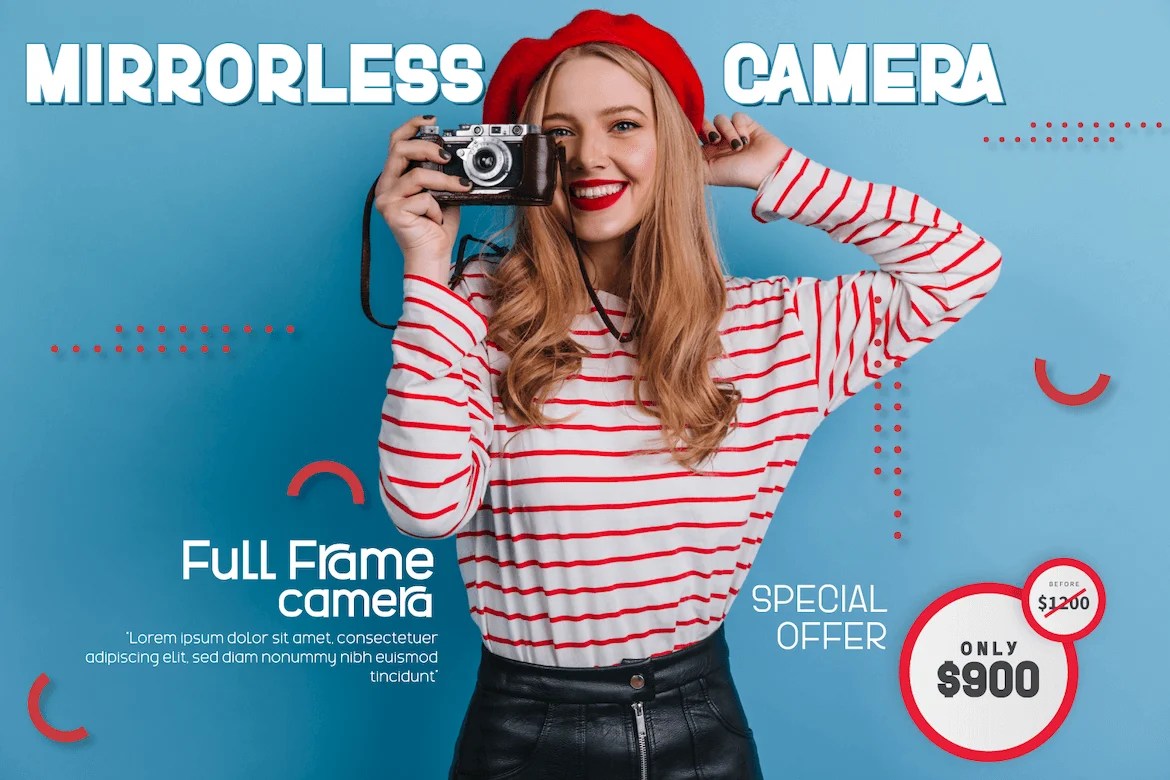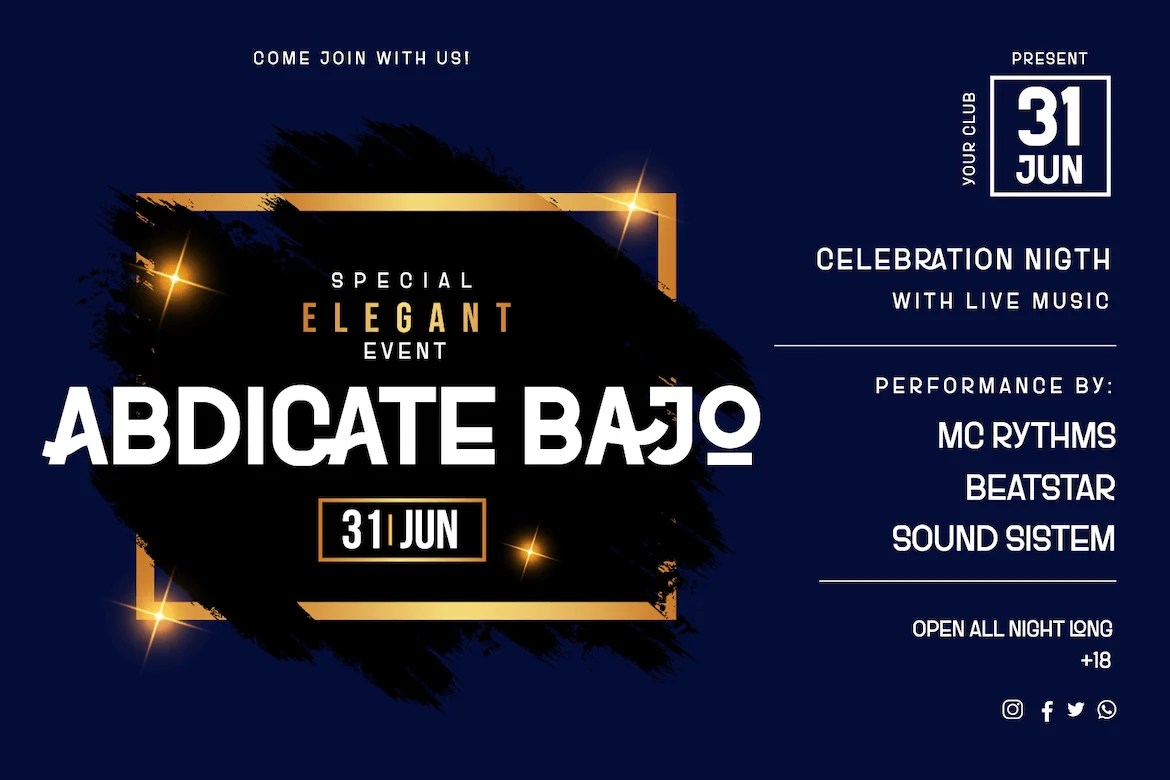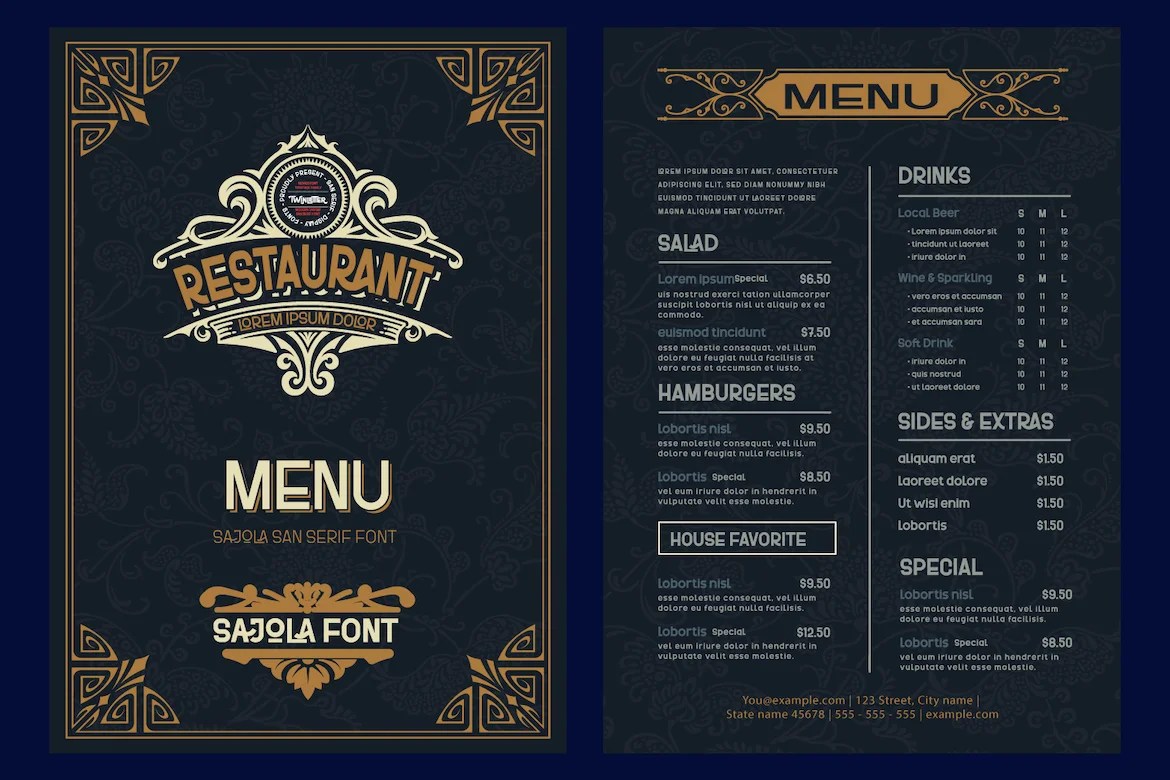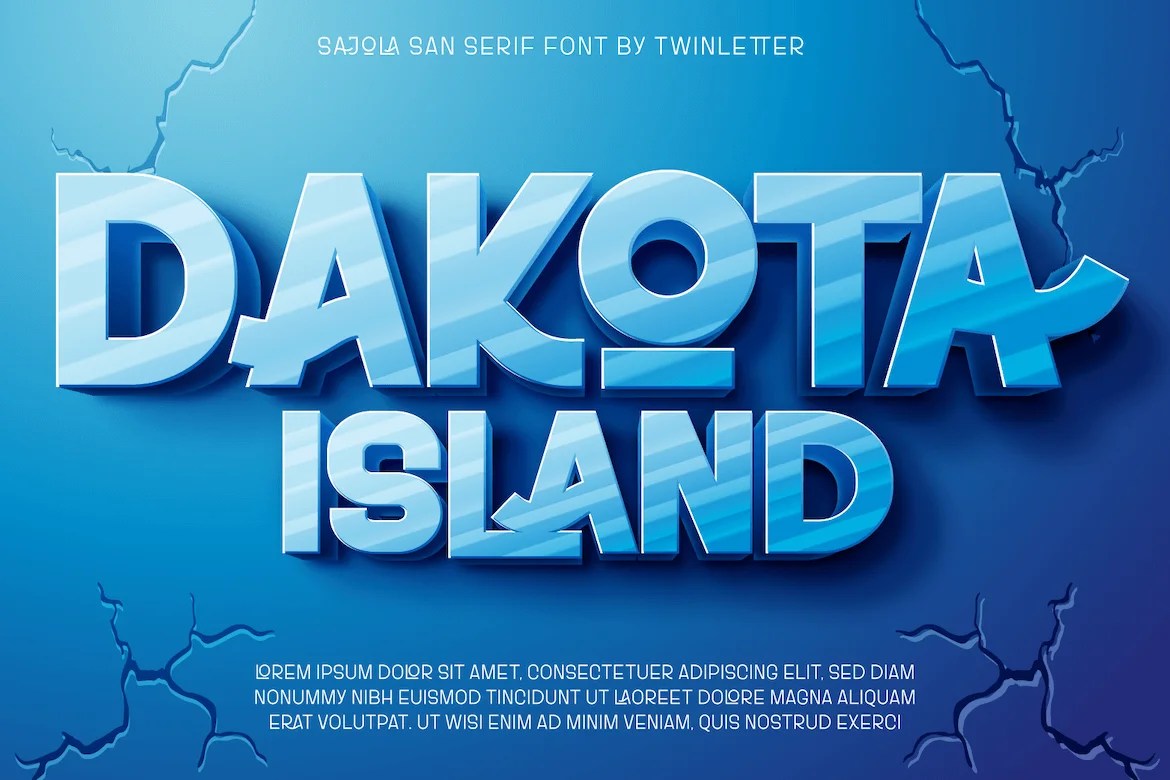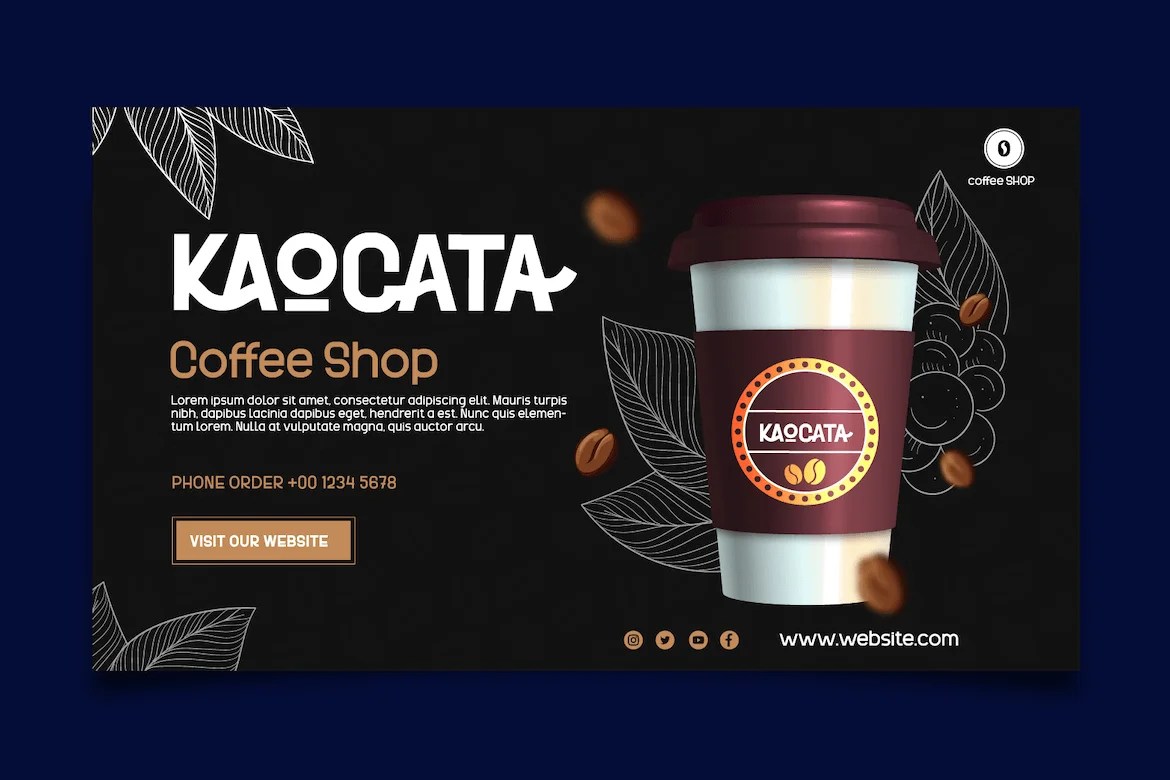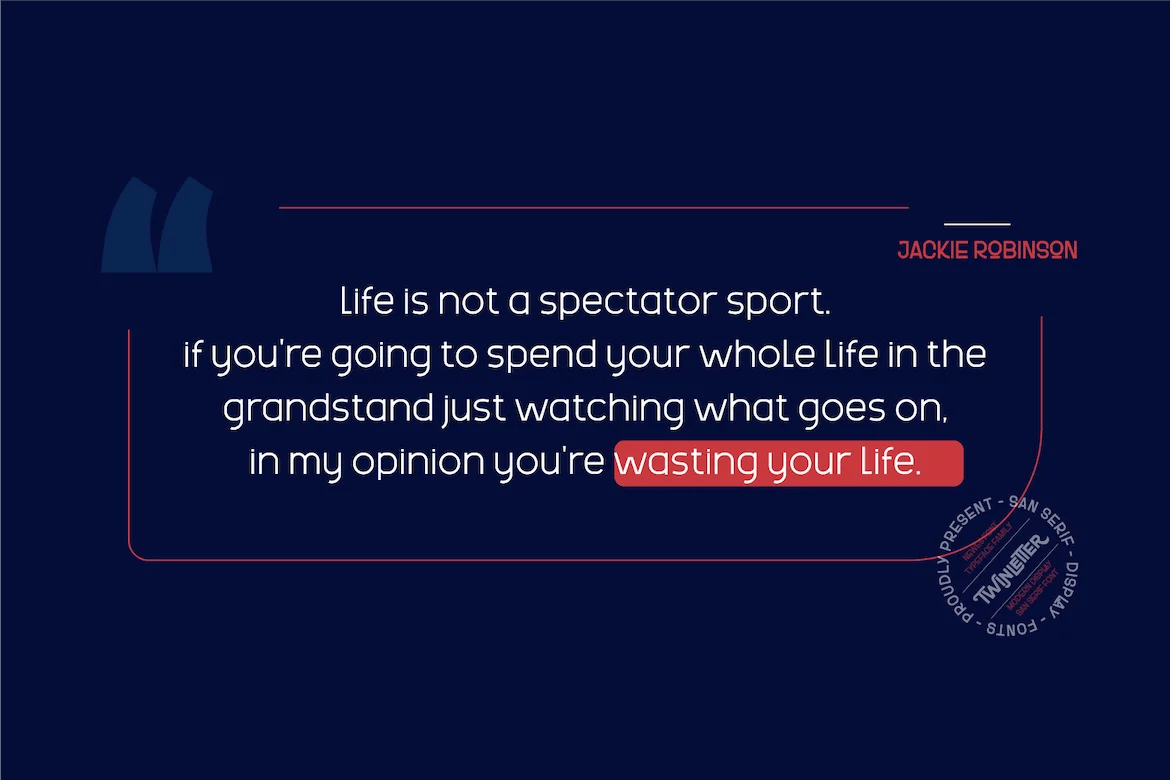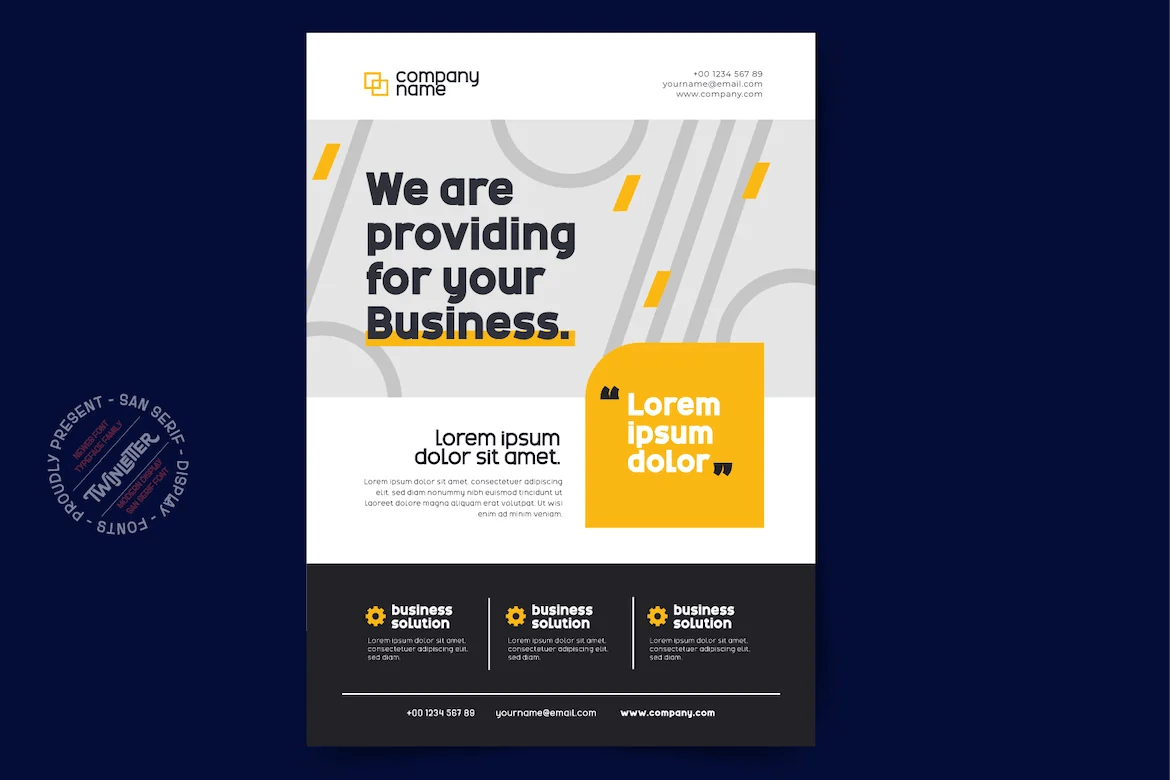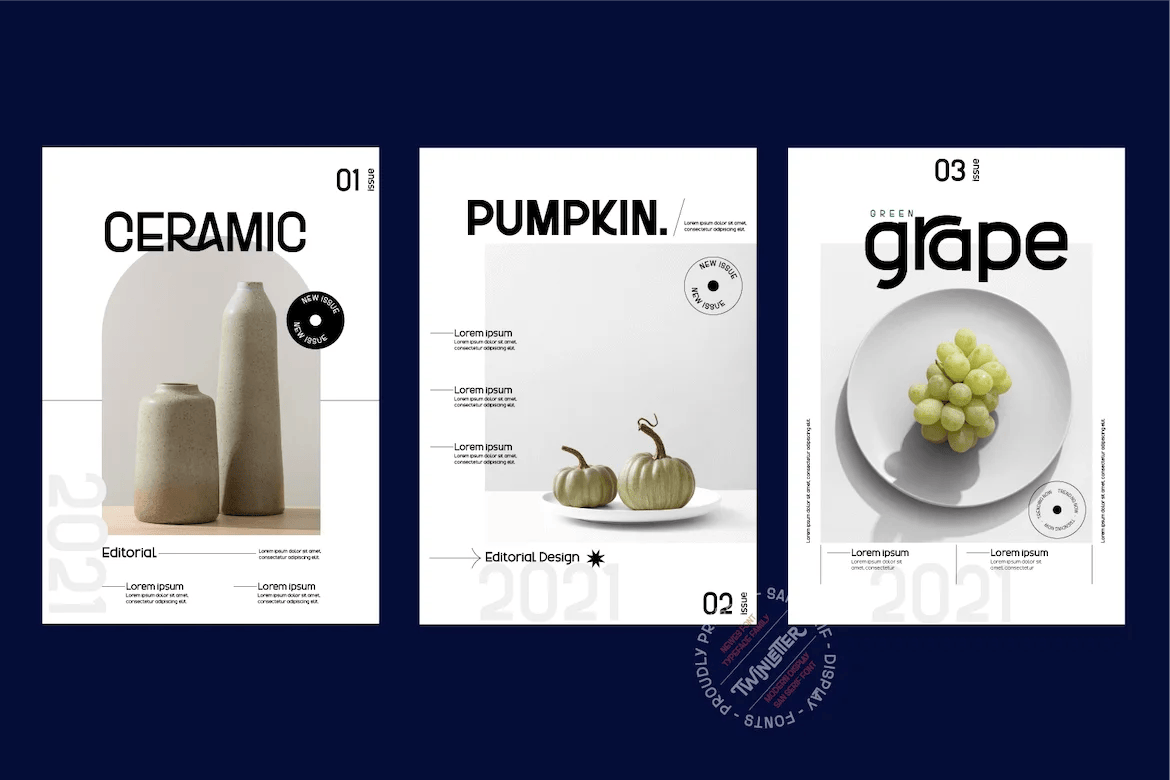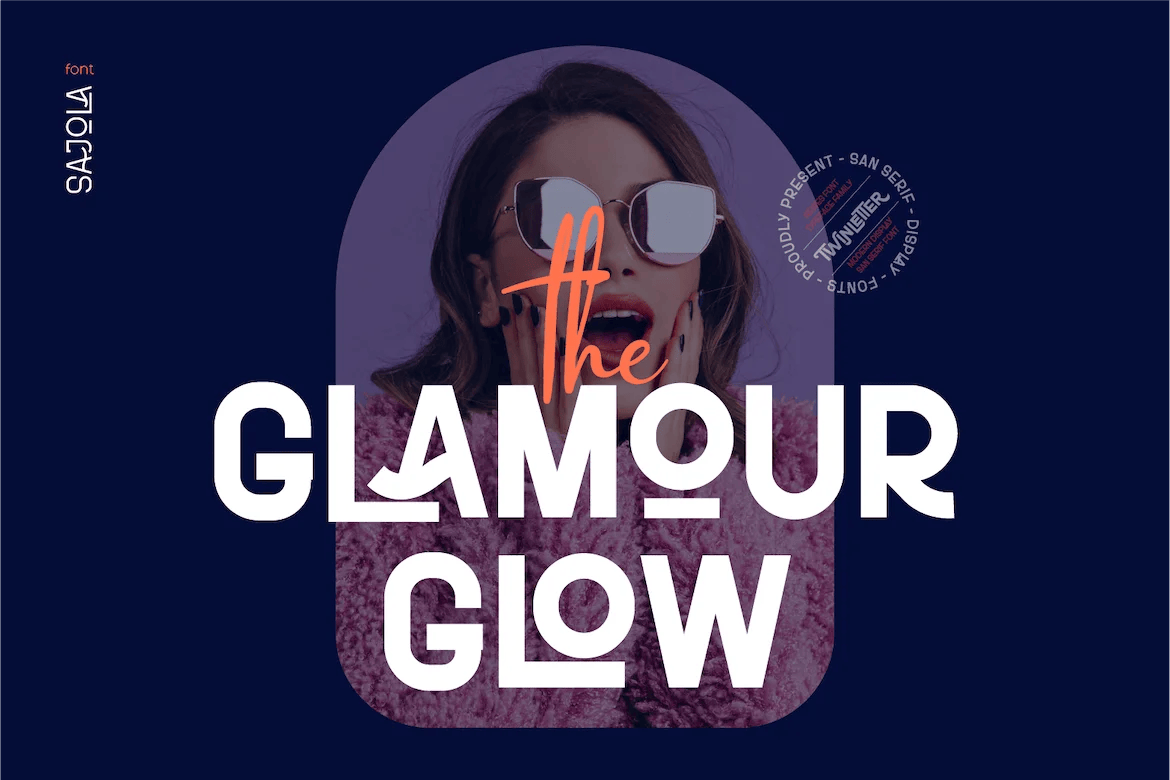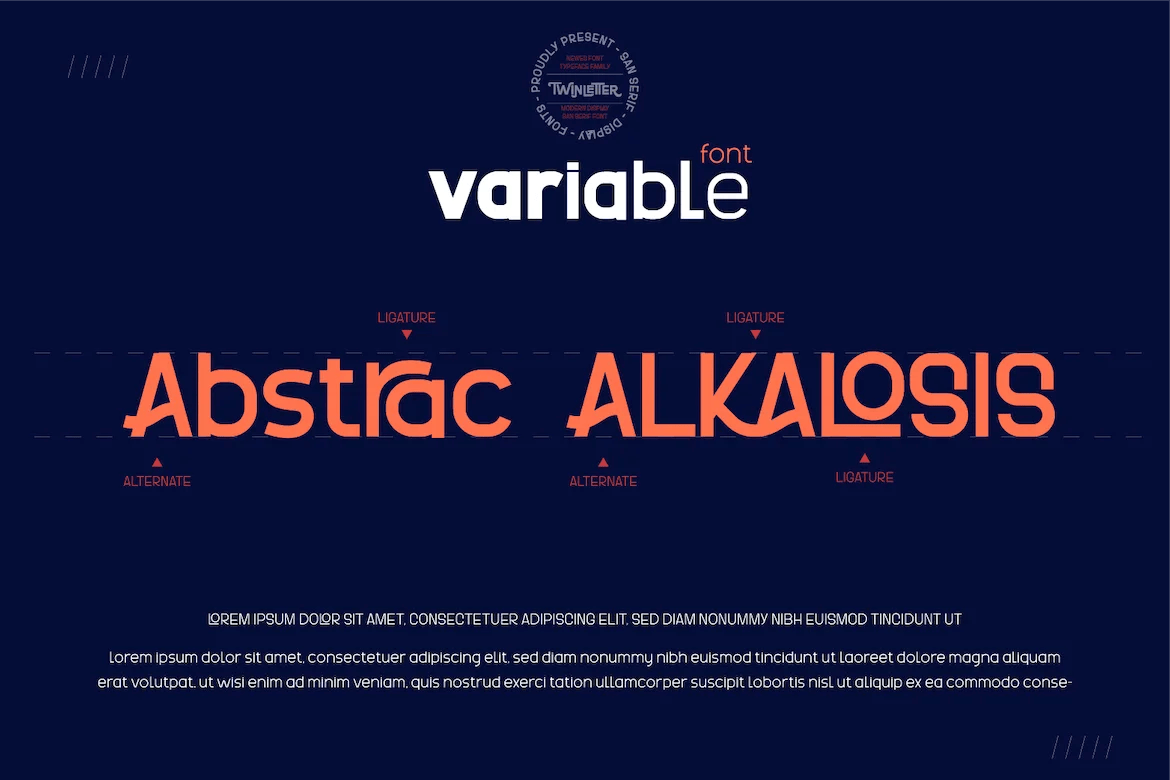
A genuine font for interface design has a constraint most display fonts never have to deal with: it has to switch between weights and styles without blowing up the layout around it. Sajola, from Twinletter, is a contemporary sans serif built specifically around that problem.
Typography carries real weight in interface design — good typographic choices can boost reading speed and improve user engagement in digital products, while poor choices increase cognitive load and hurt task completion. That’s exactly the kind of problem a font for interface design has to solve: staying legible and consistent across forms, dashboards, and navigation elements that get resized, translated, and re-weighted constantly.
Sajola is designed in four variants, ranging from formal to non-formal modern styles, all built on a coherent typography system — the same weight amount, identical character sets, and matching vertical dimensions across every variant. That consistency matters more than it sounds: a font for interface design that shifts baseline or character width between weights can quietly break a layout every time a button label goes bold or a form field switches emphasis.
Sajola is explicitly designed for space-sensitive environments — interfaces, forms, and pathfinding applications — with font spacing adjusted so that switching between weight and style doesn’t have a significant impact on overall space consumption. That’s a specific, practical answer to a real UI problem: languages like French or German often need noticeably more horizontal space than English for the same word, and a font that holds its spacing discipline across variants makes that kind of layout shift far more predictable.
What makes Sajola different from a general-purpose font for interface design? It’s explicitly built for space-sensitive environments like interfaces, forms, and pathfinding applications, with spacing calibrated so that switching between its four variants doesn’t significantly change how much space the text takes up.
Is Sajola only suitable for app and software interfaces? Its core positioning is interface, form, and wayfinding design, but the same space-discipline that makes it a strong font for interface design — consistent character width and vertical dimensions across weights — also makes it a reasonable choice for any layout-sensitive project, not just software.
Does Sajola support languages other than English? Yes, it includes multilingual support across 19 European languages, which matters directly for any font for interface design since translated text often runs longer or shorter than the English original.